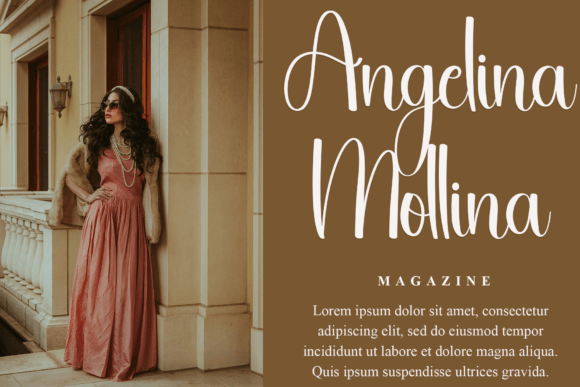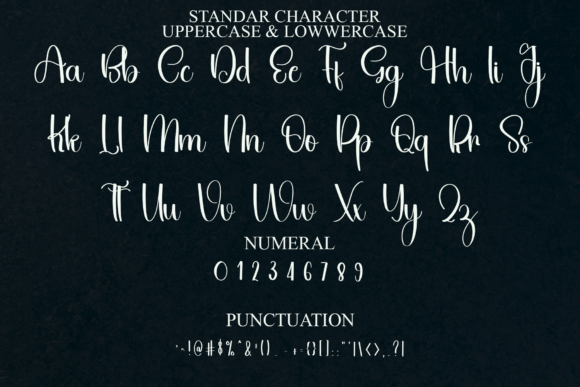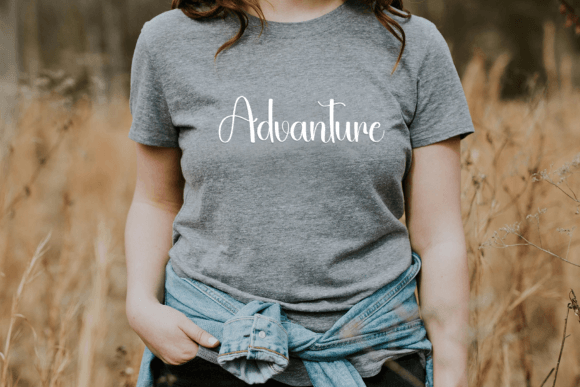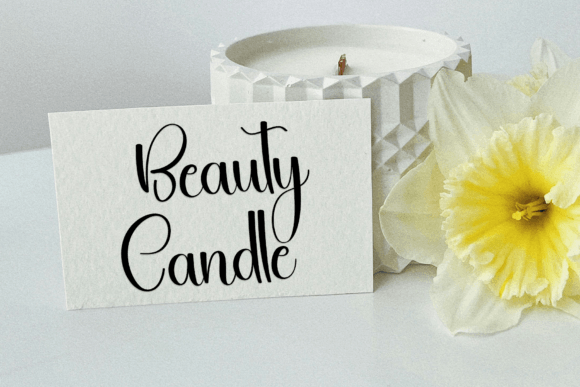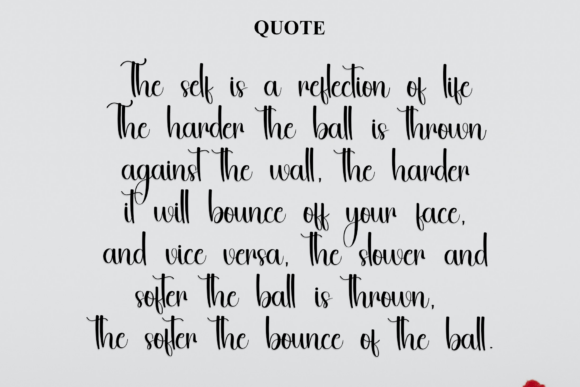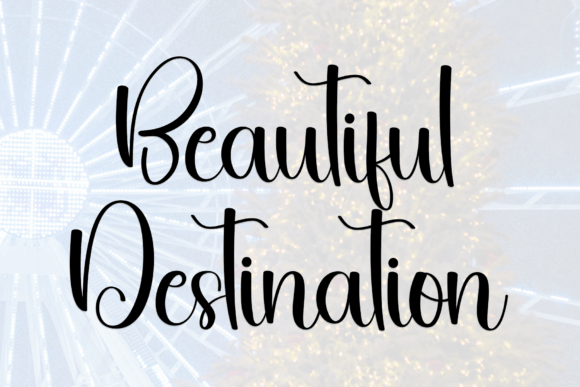
Introduction to Miracle Winter Font
As a designer, there’s nothing quite like the thrill of discovering a new font that sparks creativity and sets your imagination ablaze. It’s that moment when you stumble upon the perfect design resource that elevates your project from ordinary to extraordinary. For many, that moment came when they first laid eyes on the Miracle Winter Font – a flowing handwritten font that exudes elegance and sophistication.
With its incredibly distinct and timeless style, the Miracle Winter Font is the perfect addition to any creative project. Whether you’re working on a high-quality brochure, a stunning social media graphic, or a beautiful website, this font is sure to make your designs stand out. And the best part? It’s available for free download, complete with a transparent background that makes it easy to use in any design scenario.
Key Features of Miracle Winter Font
- High-quality, elegant design perfect for creative projects, such as invitations, greeting cards, or social media graphics.
- Features a unique, cursive script style with a winter theme, ideal for projects that require a touch of magic and wonder.
Honest Review: Miracle Winter Font
I recently stumbled upon the Miracle Winter Font while searching for the perfect design resource for a winter-themed creative project. The font is a high-quality, free download that caught my attention with its elegant and modern design.
What works well: ✨ The font’s transparent background makes it easy to use on any design project, and its versatility allows it to work well in both print and digital media. The font’s elegant design also makes it perfect for creating a winter wonderland feel.
- Elegant and modern design
- Perfect for winter-themed creative projects
However, there are some limitations: ⚠️ The font is a bit limited in terms of character sets, which might be a concern for those who need a wide range of characters for their project. Additionally, the font’s size and style might not be suitable for all types of projects.
Overall, I’m impressed with the Miracle Winter Font, and I would definitely recommend it to anyone looking for a high-quality, free design resource. It’s perfect for adding a touch of winter wonder to your creative project.
Tips for Getting the Most Out of Miracle Winter Font
The Miracle Winter Font is perfect for use in brochures, invitations, and other marketing materials. Its elegant design makes it ideal for weddings, holiday parties, and other special events.